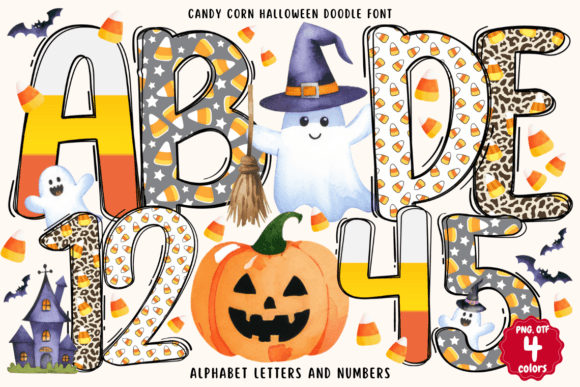
Candy Corn Halloween Doodle Font
Candy Corn Halloween Doodle Font is a fun and quirky handwritten typeface inspired by the sweet, festive spirit of Halloween. Perfect for Halloween-themed designs, this font features playful doodles and candy corn accents, making it ideal for school projects, holiday posters, creative art, and graphic design. Whether you’re crafting invitations, decorating for Halloween, or designing festive holiday materials, Candy Corn Halloween Doodle Font adds a whimsical and seasonal charm to any project. Bring the spooky season to life with this delightful and creative font!